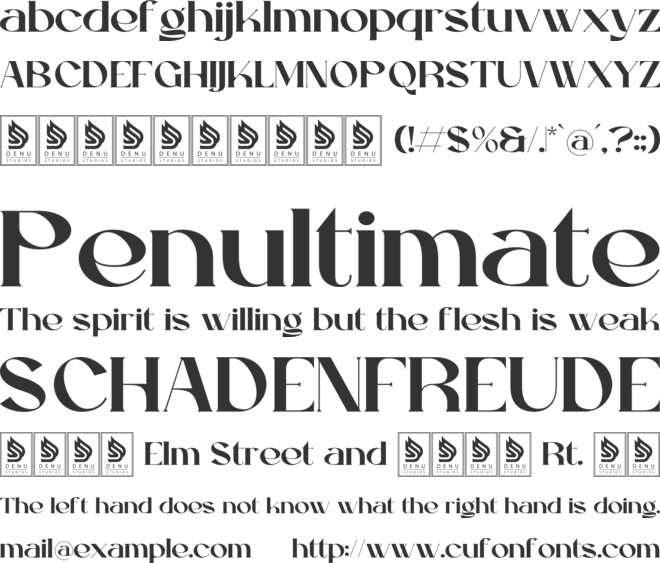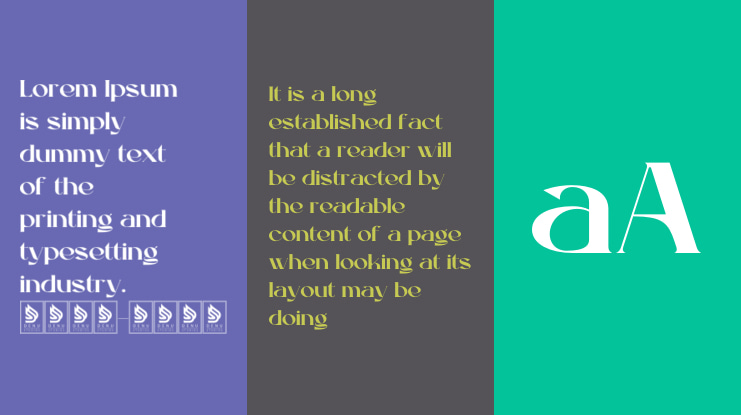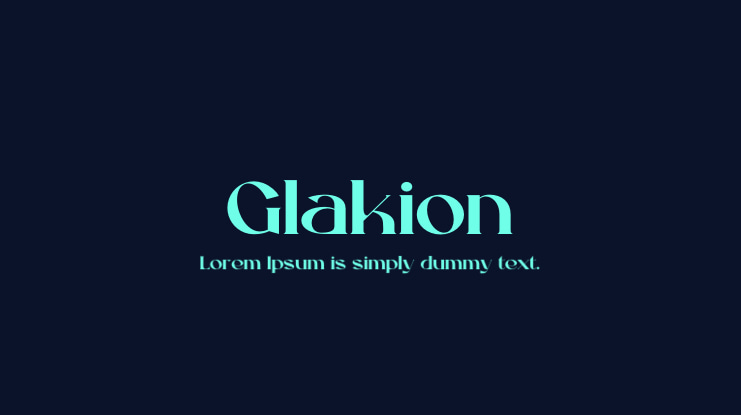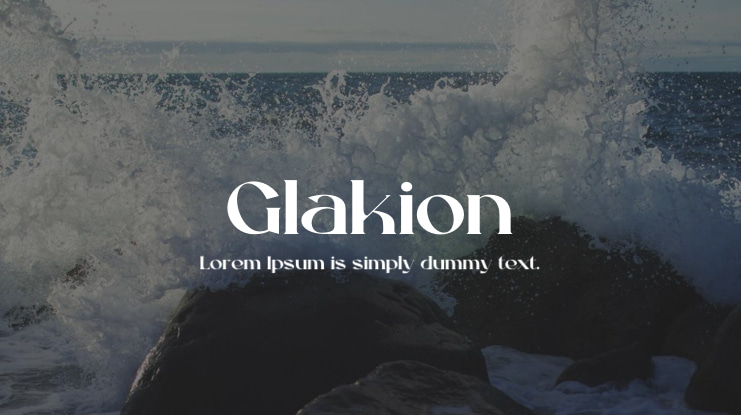
Glakion Font
Glakion | Modern Display Serif is suitable for various projects such as logos, branding projects, homeware designs, product packaging, mugs, quotes, posters, shopping bags, t-shirts, book covers, name cards, invitation cards, greeting cards, labels, photography, watermarks, special events, and all your other lovely projects that need a Modern Display Serif Font touch.